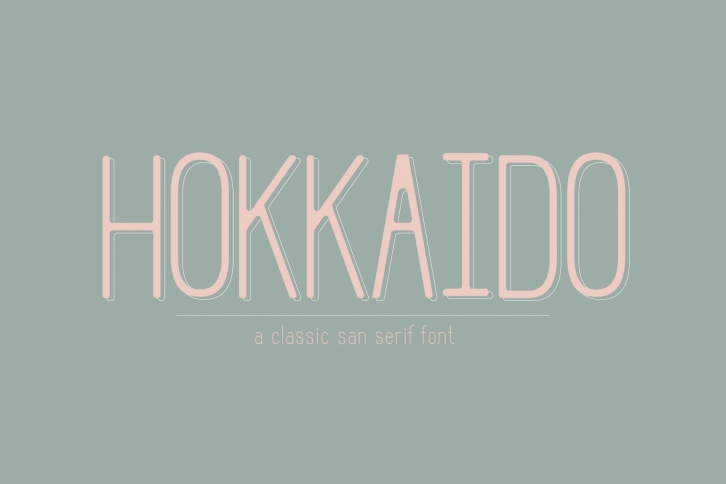
Hokkaido is a great font that was designed by Paula Type. Imagine the amount of combinations you can create using this font! The archive is 13.24 MB and it was released on March 9, 2019. Hokkaido looks beautiful on wedding invitations, greeting cards, logos, posters, labels, t-shirt designs, logos, business cards and is perfect for use in ink or watercolor works, fashion, magazines, packaging and food menus, children's books and more!